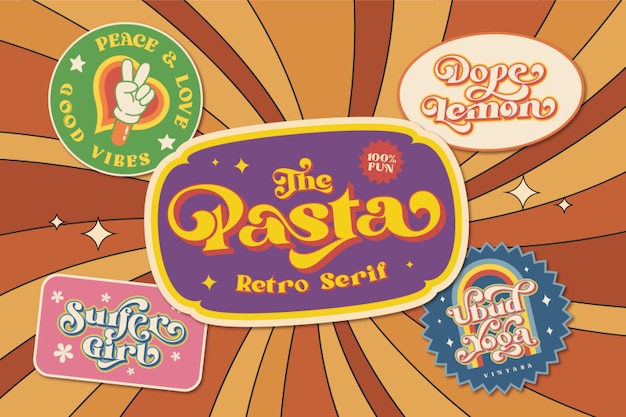
Pasta Font
Burntilldead
The Pasta is a bold, groovy font with a fun, sticker-like appeal. Its curvy, chunky letters exude a retro charm, reminiscent of vintage signage and playful designs. Perfect for adding a touch of whimsy and personality, The Pasta brings a lively, standout vibe to any project, making it ideal for creative logos, headlines, and eye-catching visuals.